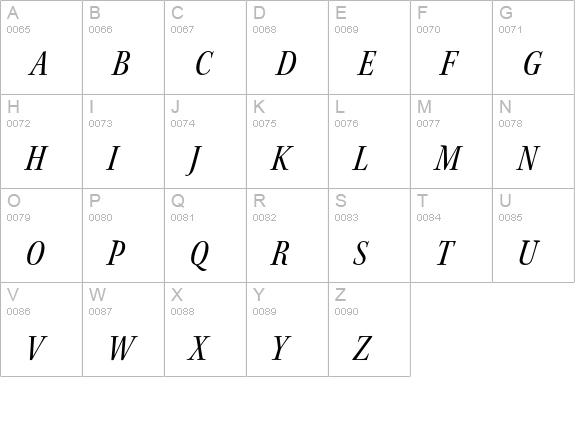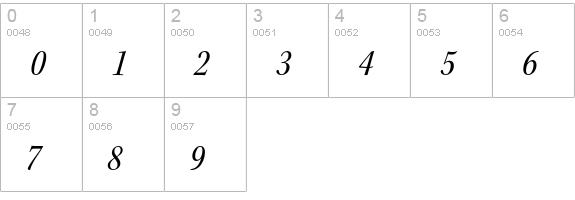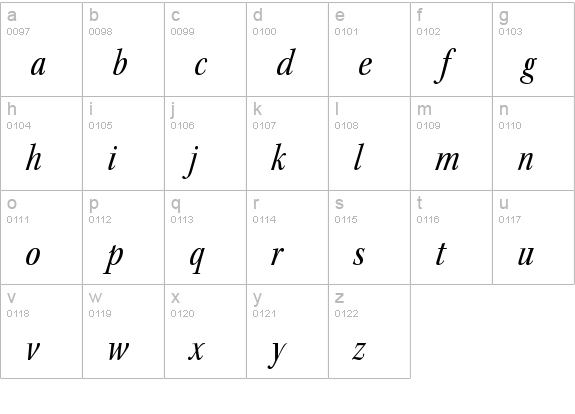
Kepler Std Condensed Italic Subhead Font Details
Kepler Std Condensed Italic Subhead is a distinctive, condensed-width, italic variant in the Kepler typeface family \xE2\x80\x94 well suited to design and typography projects.
Kepler Std Condensed Italic Subhead font is a visually striking typeface that exudes elegance and sophistication. Its condensed form adds a touch of modernity, making it perfect for subheadings and titles that require a bold statement. The italic style adds a sense of dynamic movement, creating a visually captivating design. With its clean lines and balanced proportions, Kepler Std Condensed Italic Subhead font is versatile and can be used across a wide range of design projects. Whether it's in print or on the web, this font will command attention and enhance the overall aesthetic of any design. One of the best aspects of Kepler Std Condensed Italic Subhead font is that it is freely available to download at FontsMarket.com. This means that designers and creatives can easily access and utilize this stunning font without any cost. It's a fantastic opportunity to enhance your design work with a high-quality, professional font that will elevate your projects to new heights. Don't miss out on this amazing font – download Kepler Std Condensed Italic Subhead font for free at FontsMarket.com and see how it can transform your designs into works of art.